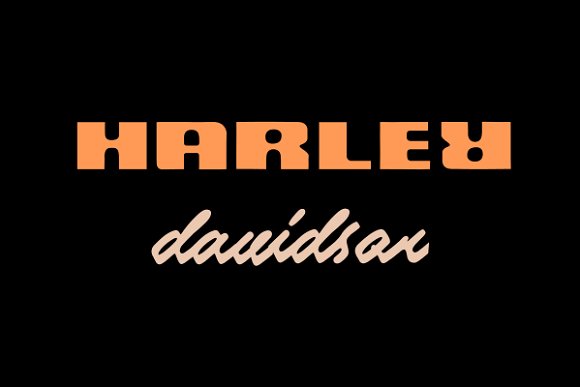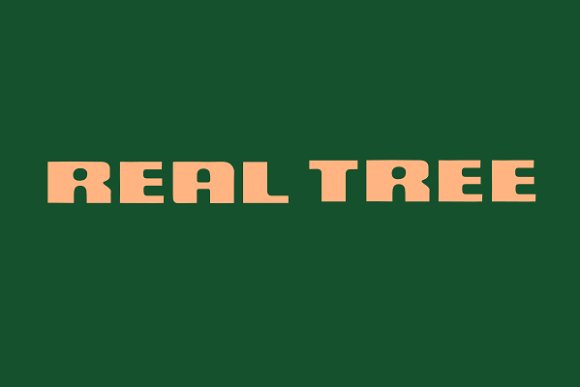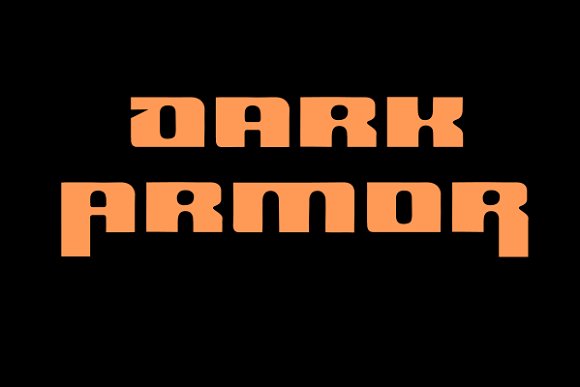
Unleash Your Message with Driver Font: The Bold and Brazen Choice
Are you looking for a font that screams confidence and grabs attention? Look no further than Driver Font, a motor industrial-inspired sans serif that’s perfect for making a statement. As its name suggests, Driver is designed to drive your message home with its bold and brazen style, making it ideal for signage, headings, and any project that requires a loud and fast communication.
The Characteristics of Driver Font
Driver Font is a sans serif font, which means it doesn’t have the small lines or flourishes at the ends of the letters. This gives it a clean and modern look that’s perfect for industrial and motor-inspired designs. The font is also all-caps, which adds to its bold and brazen personality. The letters are thick and chunky, making it perfect for large-scale designs, such as billboards, posters, and signage.
When to Use Driver Font
Driver Font is perfect for designers and crafters who want to make a statement with their typography. Here are some scenarios where Driver Font shines:
- Signage: Driver Font is designed to be seen from a distance, making it perfect for signage, billboards, and posters.
- Headings: Use Driver Font to create bold and eye-catching headings that grab attention.
- Industrial Designs: Driver Font’s motor industrial-inspired style makes it perfect for designs related to manufacturing, construction, and engineering.
- Advertising: Driver Font is perfect for creating bold and attention-grabbing ads that need to communicate a message quickly and effectively.
Tips for Using Driver Font
While Driver Font is a bold and attention-grabbing font, it can be overwhelming if not used correctly. Here are some tips for using Driver Font effectively:
- Use it sparingly: Driver Font is a bold font, so use it sparingly to avoid overwhelming your design.
- Pair it with a simple font: Pair Driver Font with a simple font to create contrast and make your design more readable.
- Choose the right color: Choose a color that complements the bold and brazen style of Driver Font.
- Experiment with sizes: Experiment with different sizes to find the perfect balance between bold and readable.
Driver Font is a bold and brazen font that’s perfect for designers and crafters who want to make a statement with their typography. Its motor industrial-inspired style makes it ideal for signage, headings, and any project that requires a loud and fast communication. By following the tips outlined above, you can use Driver Font to create stunning designs that grab attention and communicate your message effectively.
Driver Font is a powerful tool for designers and crafters who want to create bold and attention-grabbing designs. Its unique style and versatility make it perfect for a wide range of projects, from signage to advertising. With its bold and brazen personality, Driver Font is sure to make a statement and drive your message home.